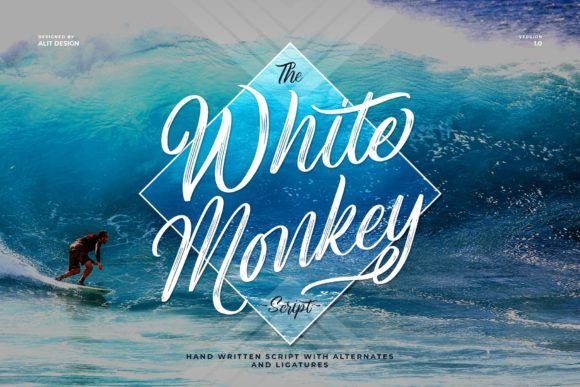
Journey into the realm of creativity, where your designs flourish with the enchanting strokes of White Monkey Font, a script font family that captures the essence of grace and sophistication. White Monkey's delicate curves and elegant lines are a testament to the beauty of simplicity, leaving an everlasting impression on your audience.
Crafted with meticulous attention to detail by the talented Alit Design, White Monkey is the perfect choice for designers seeking an alluring and refreshing aesthetic. Its effortless flow and timeless appeal make it an ideal selection for various projects, from branding and logos to invitations and personalized artwork.
Lose yourself in the charm of White Monkey's artistry as you explore its extensive character set, featuring uppercase and lowercase letters, numerals, punctuation, and a captivating array of glyphs and swashes. With its PUA encoding, accessing these special characters is a breeze, allowing you to unleash your creative potential and add a touch of exclusivity to your designs.
Step into a world where imagination meets artistry, where White Monkey Font elevates your designs to new heights. Whether you're a seasoned graphic designer or embarking on your creative journey, White Monkey will empower you to create designs that captivate and inspire.
Indulge in the beauty of White Monkey Font and experience the joy of creating designs that speak to the heart. Let the world witness the magic of your imagination as you unlock the endless possibilities that await you with this exquisite font family.